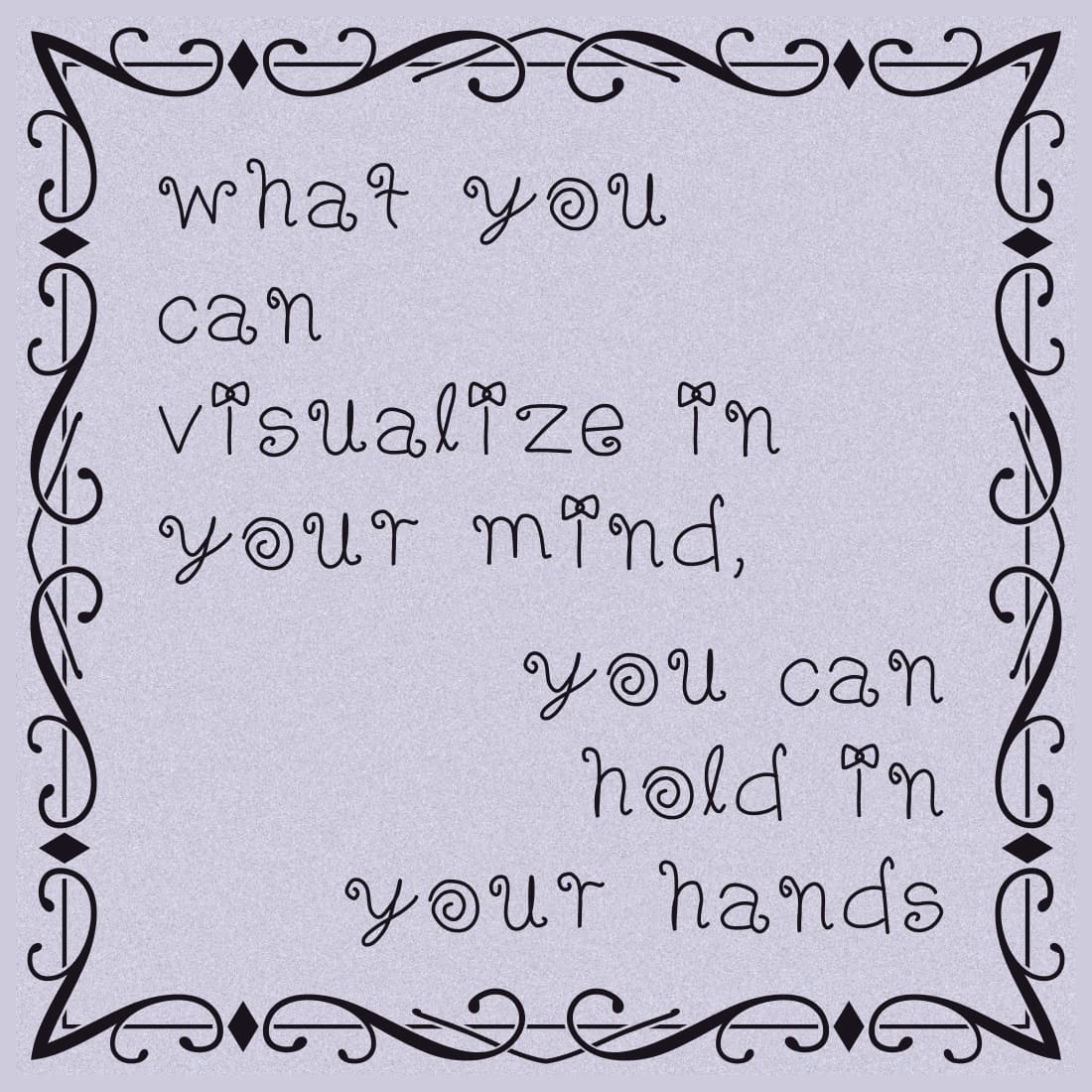
Fancy Font
Fancy Font was created by Dafont.com and is given for free access and use. It is a unique hand font. It is original and easy to use. Suitable for prints and signatures, possibly on printed postcards.